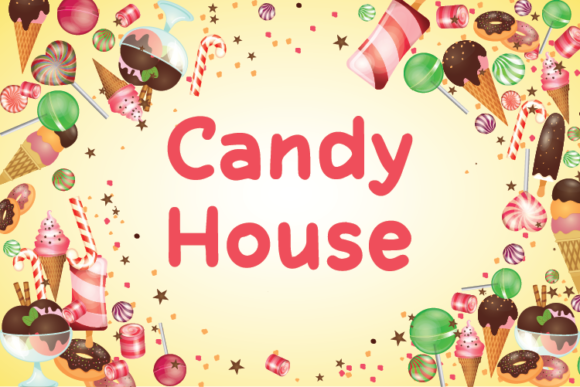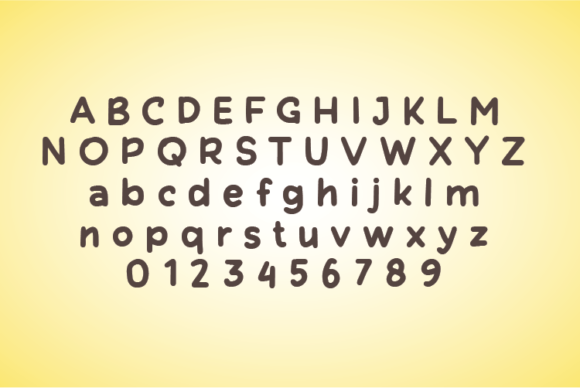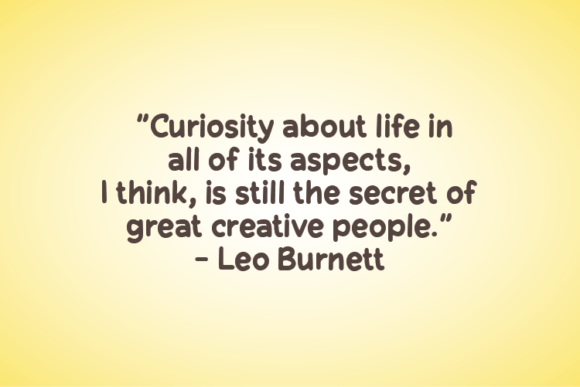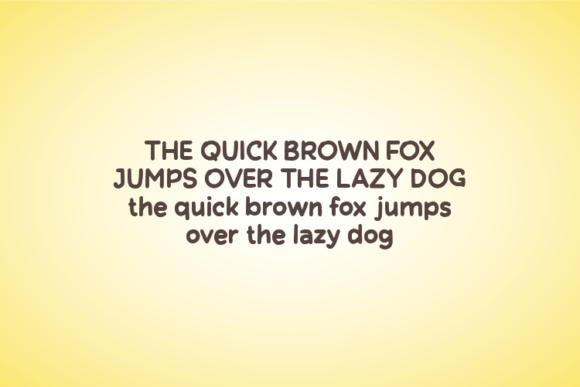
Candy House Font
About Candy House Font
Candy House is a whimsical and natural handwritten font known for preserving each character’s original indentation without altering a single node. This distinctive feature gives the font an interesting and unique quality, making it an ideal choice for quotes, notes, tees, and various product designs.
The font’s natural handwritten style brings a playful and authentic feel, making it perfect for projects that aim to convey a sense of sweetness and charm. Whether used in quotes for inspiration, notes to add a personal touch, or on t-shirts and product designs, Candy House imparts an unaltered and whimsical quality to your text.
In quotes and inspirational messages, Candy House’s natural handwritten appearance adds a touch of playfulness and authenticity. The font’s unique design ensures that your words are presented in a way that feels personal and genuine, contributing to a lighthearted expression.
For notes and personal messages, Candy House enhances the sincerity of your communication. Its untouched indentation design gives the font a handcrafted and individualized look, making your messages feel more intimate and genuine.
On t-shirts and product designs, Candy House’s natural and unique characteristics create a distinctive visual appeal. The font adds an original touch to your designs, making them stand out with a whimsical and unaltered charm.
The versatility of Candy House extends to various design applications where a natural and handwritten style is desired. Its uniqueness ensures that your text becomes a focal point, adding an interesting and engaging element to your overall design.
In summary, Candy House is not just a font; it’s a creative tool that brings a natural and whimsical handwritten style to your projects. Whether used in quotes, notes, tees, or product designs, Candy House adds an authentic touch, making your creations stand out with a playful and charming charm.